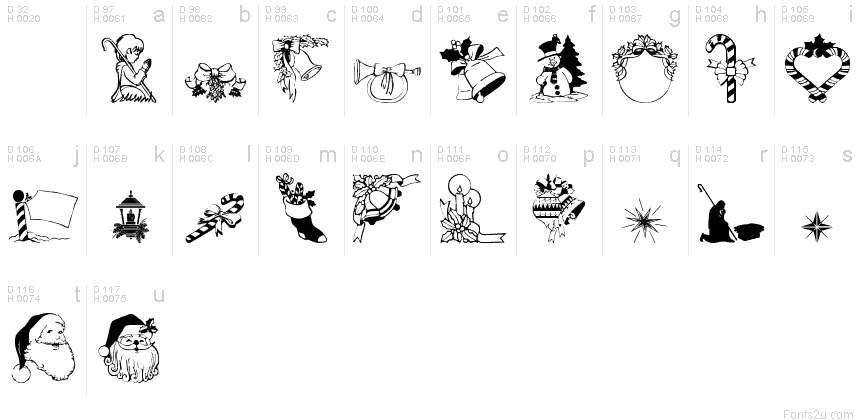
Christmas3
Christmas 3 font by D. Montique - Moonlightdesigns is a free decorative dingbat typeface that turns the keyboard into a box of Christmas stamps. Each icon feels hand-cut and inky: striped candy canes tied with soft bows, a quiet nativity silhouette, heart-shaped sweets, and a crisp guiding star. The solid black shapes reproduce cleanly at small sizes yet stay charming and bold when enlarged for posters or signage.
Using Christmas 3, you can quickly add holiday flair to greeting cards, gift tags, church bulletins, party invitations, scrapbook pages, and cozy social posts. The icons drop in like clip art, but with a more unified, storybook style that keeps layouts from looking messy. For a polished look, pair this free font with a simple sans serif for text and let the dingbats carry the festive mood.